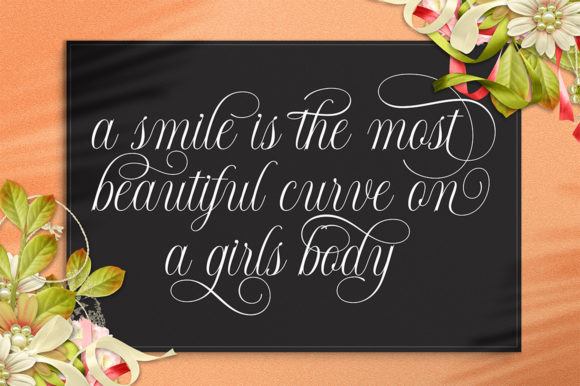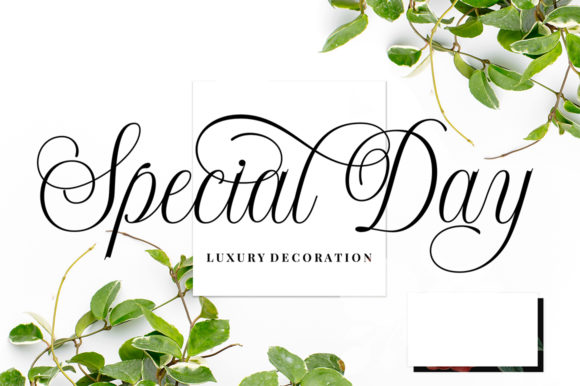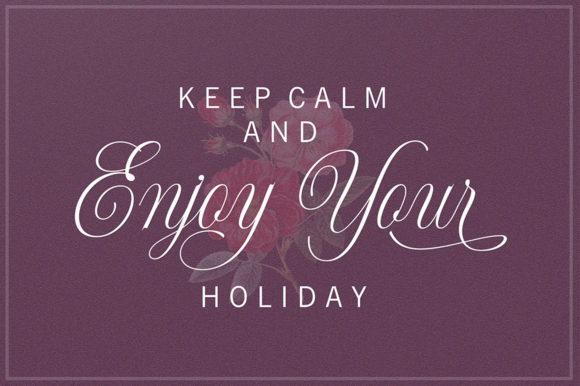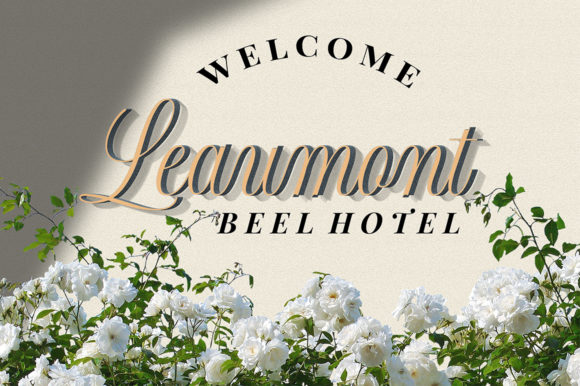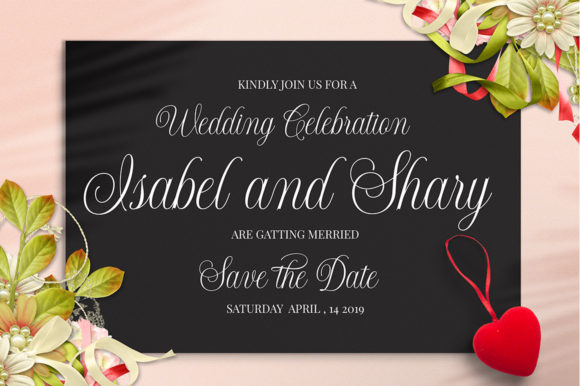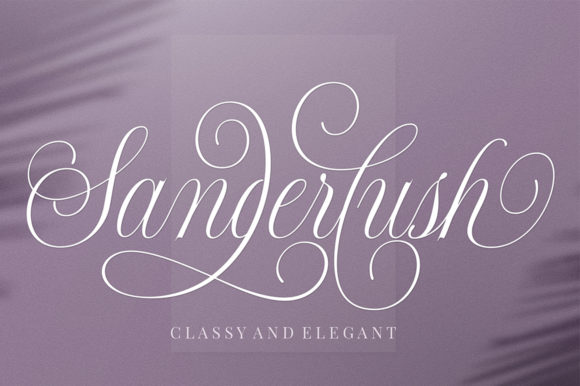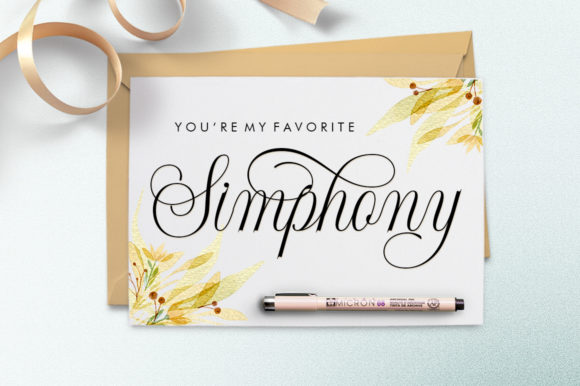
Shintosa Font
About Shintosa Font
Shintosa is a stylish and incredibly elegant script font with a unique and playful touch. Get inspired by its delicate charm.